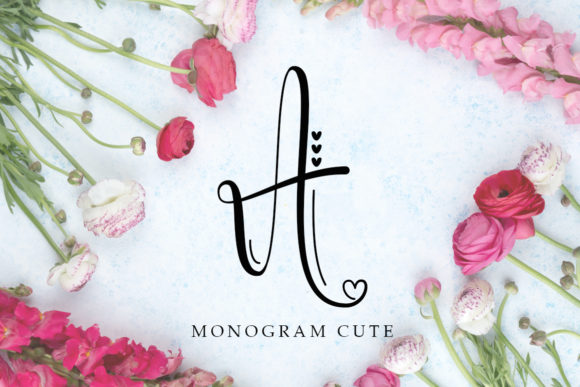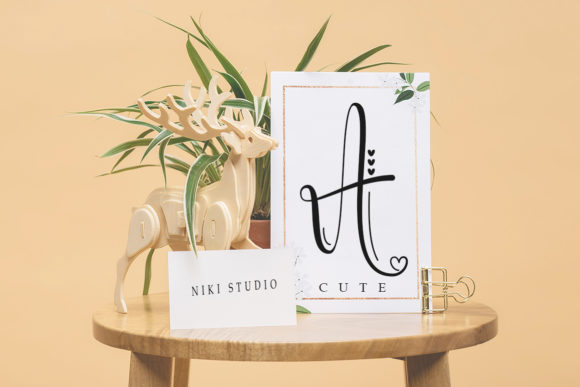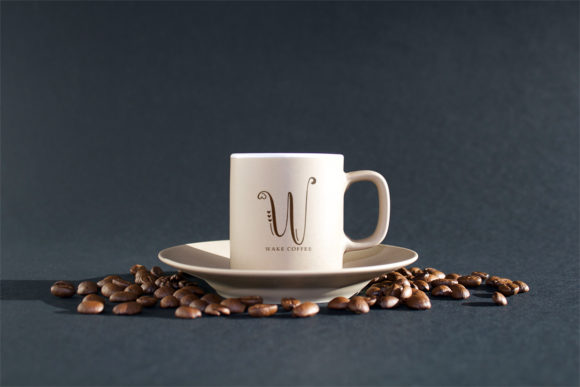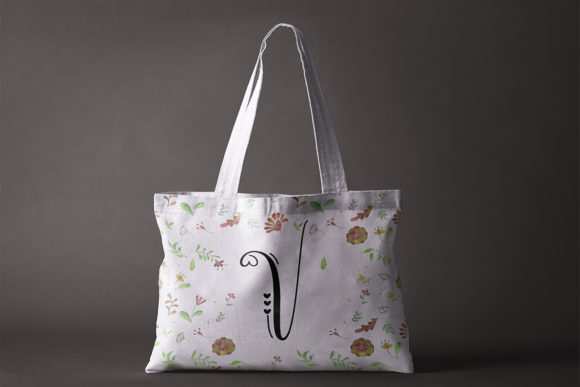
Monogram Cute Font
Monogram Cute Font Poster 1
About Monogram Cute Font
Monogram Cute is a unique script font. Fall in love with its romantic feel and use it to create gorgeous wedding invitations, beautiful stationary art, eye-catching social media posts, and cute greeting cards.